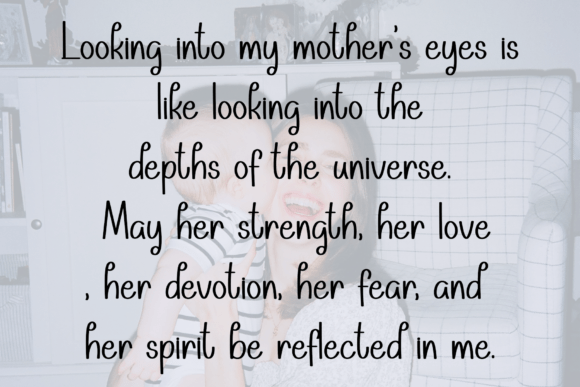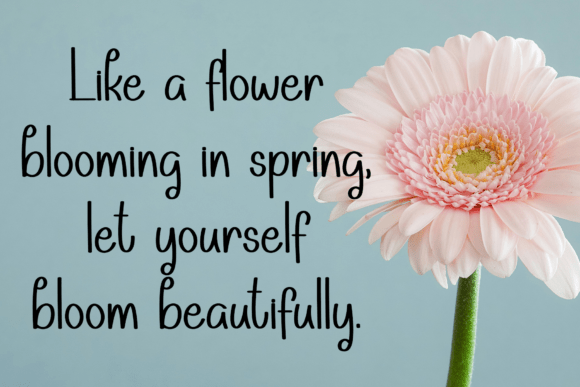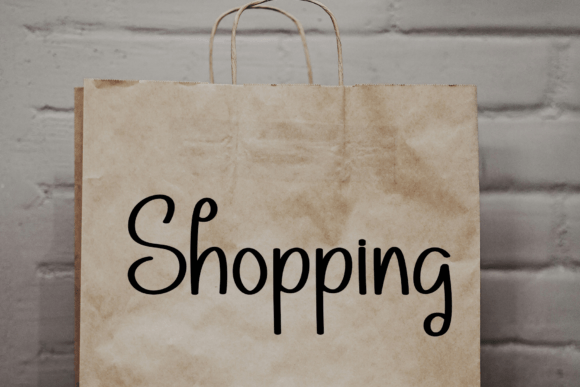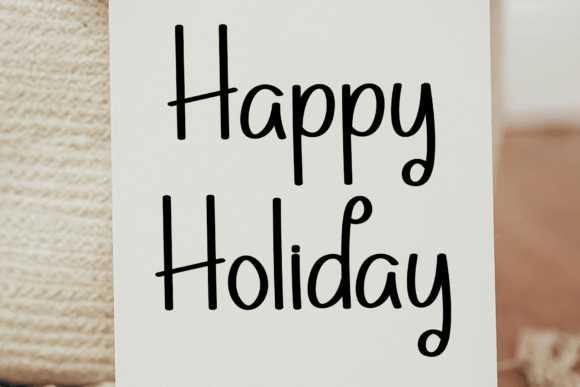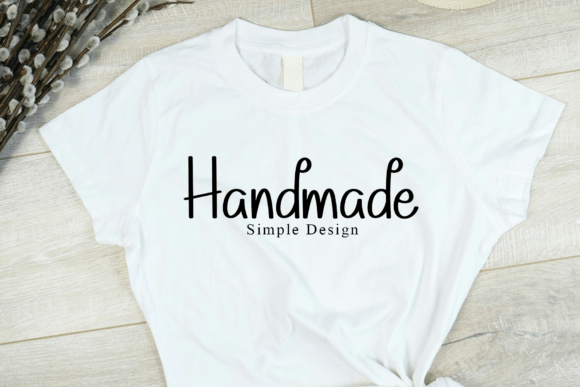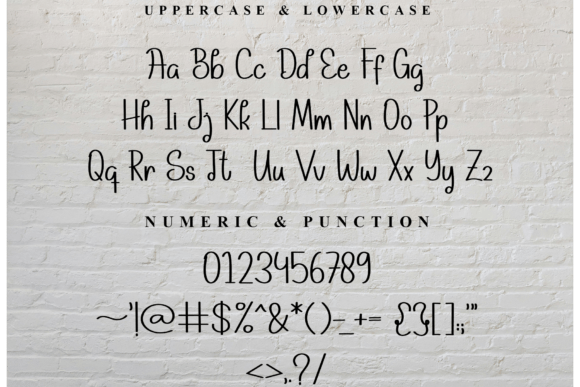
Introducing Happy Mother Font: The Perfect Blend of Warmth and Creativity
Are you tired of using the same old fonts for your personal projects, invitations, and social media graphics? Look no further than Happy Mother Font, a casual and creative typeface that exudes warmth and friendliness. This charming font is designed to add a fun and unique touch to any design, making it perfect for designers and crafters alike.
The Characteristics of Happy Mother Font
Happy Mother Font boasts round, playful strokes that create a relaxed and approachable feel. Its hand-drawn aesthetic is reminiscent of a warm, sunny day, making it perfect for designs that require a personal touch. The font’s casual and creative vibe is sure to capture the attention of your audience and leave a lasting impression.
Perfect for Personal Projects and Designs
Whether you’re working on a personal project, creating invitations for a special occasion, or designing social media graphics, Happy Mother Font is the perfect choice. Its friendly and approachable feel makes it ideal for designs that require a personal touch. Use it to create:
- Personalized invitations for birthdays, weddings, and baby showers
- Social media graphics that showcase your brand’s personality
- Blog posts and articles that require a friendly and approachable tone
- DIY craft projects, such as handmade cards and gift tags
Happy Mother Font offers a range of benefits for designers and crafters, including:
- A unique and creative way to express your brand’s personality
- A friendly and approachable feel that resonates with your audience
- The ability to add a personal touch to your designs
Tips for Using Happy Mother Font
To get the most out of Happy Mother Font, here are some tips to keep in mind:
- Use it for headlines and titles to add a playful touch
- Pair it with other fonts to create a unique and creative contrast
- Use it consistently across your designs to create a cohesive brand identity
Happy Mother Font is a versatile and creative typeface that is perfect for designers and crafters looking to add a personal touch to their designs. Its friendly and approachable feel, combined with its compatibility with various design applications, makes it an ideal choice for a range of projects. So why not give Happy Mother Font a try and see how it can elevate your designs to the next level?